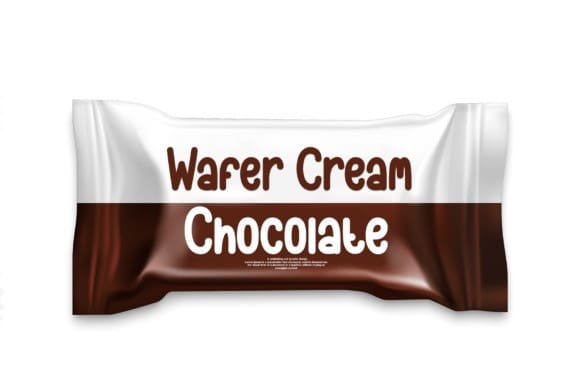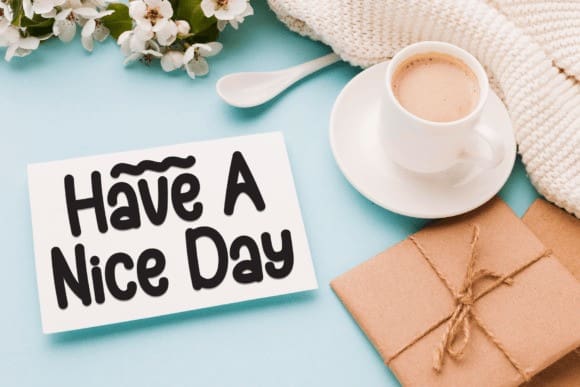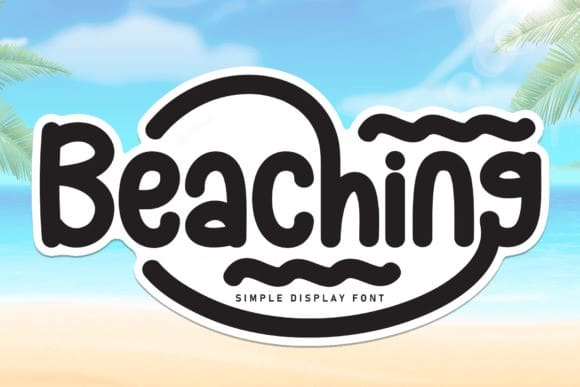
Beaching Display Font
Beaching Display Font is a sweet and friendly handwritten font. Add it to your designs and watch them come alive. It is suitable for use on invitations, cards, watermarks, social media and more.